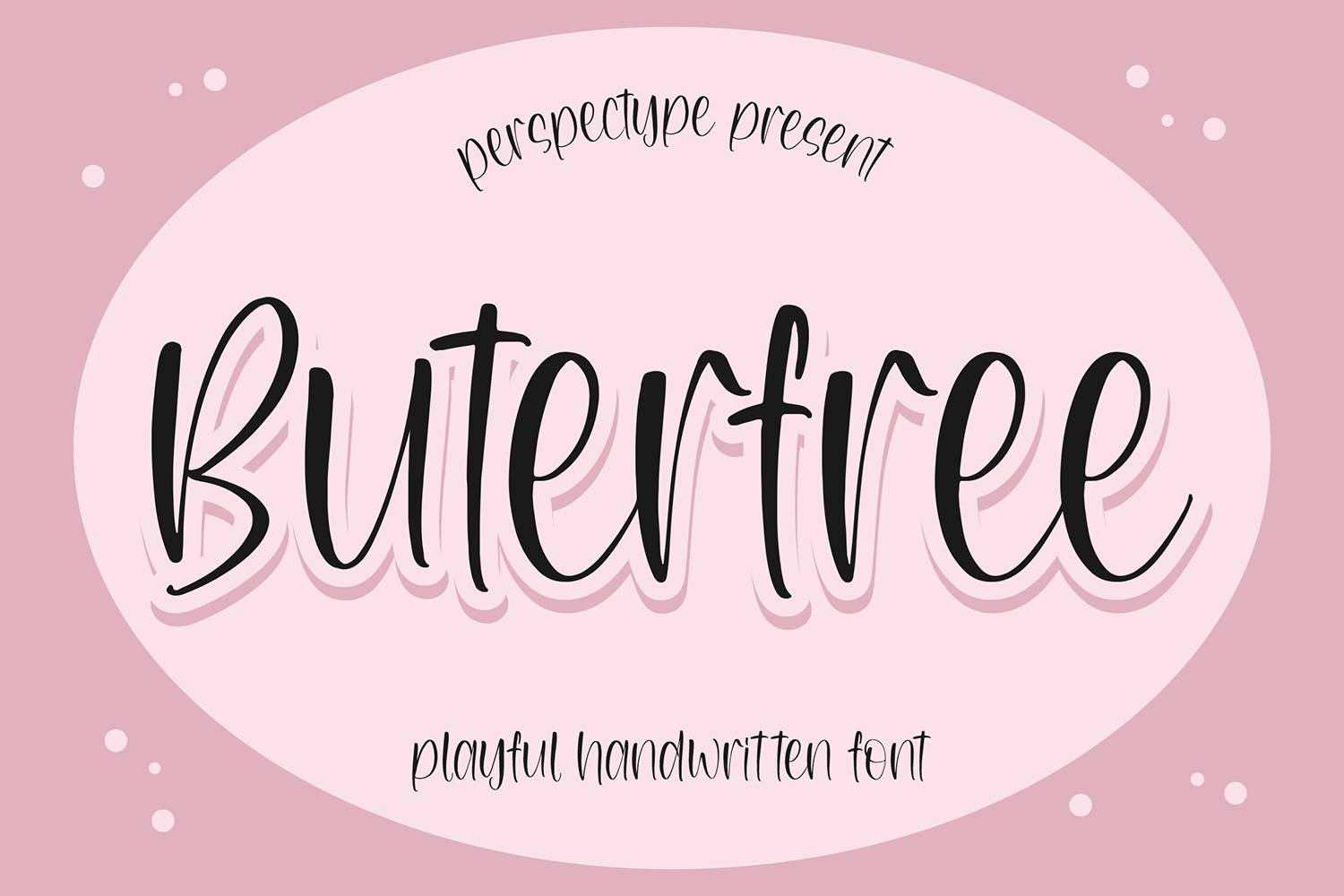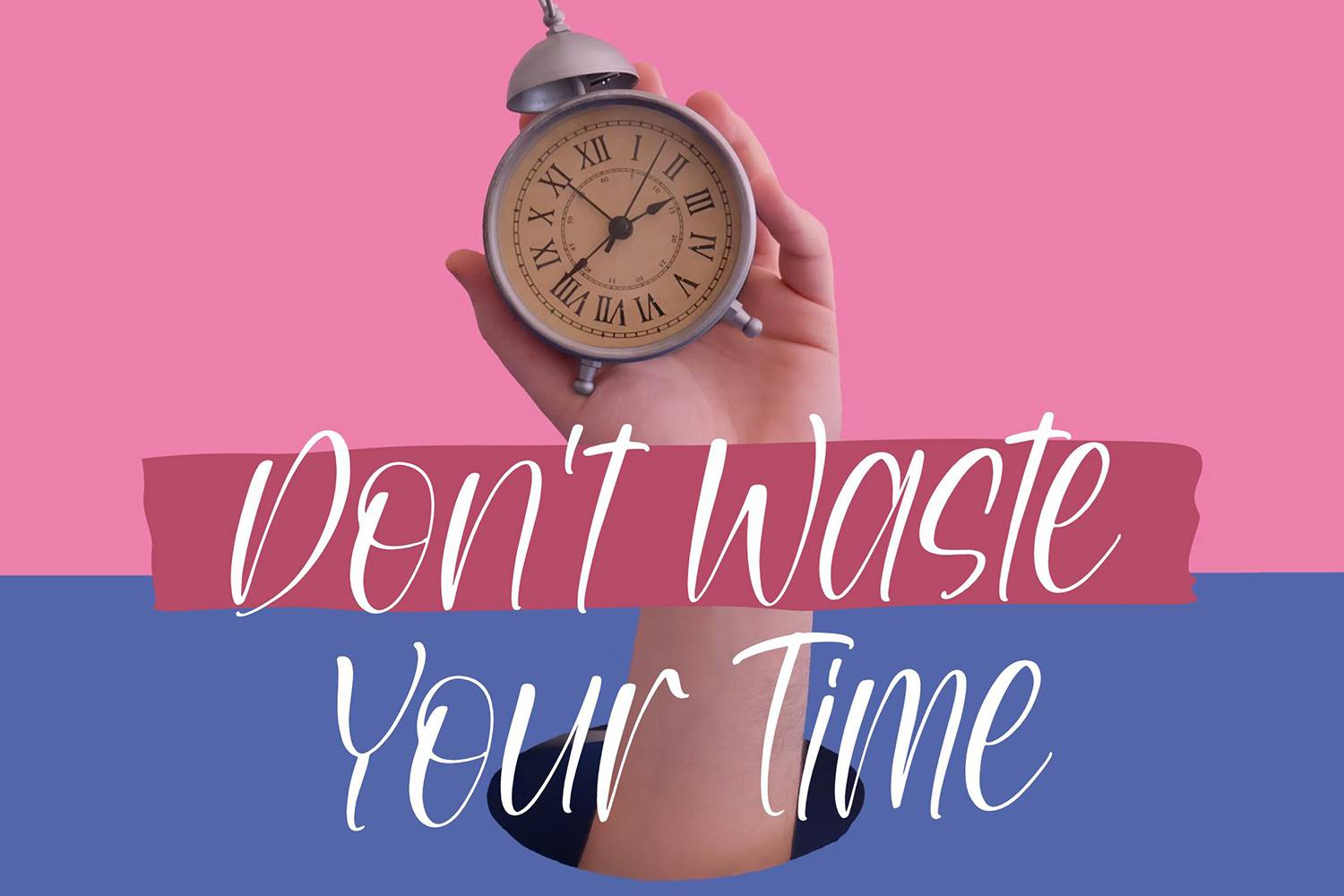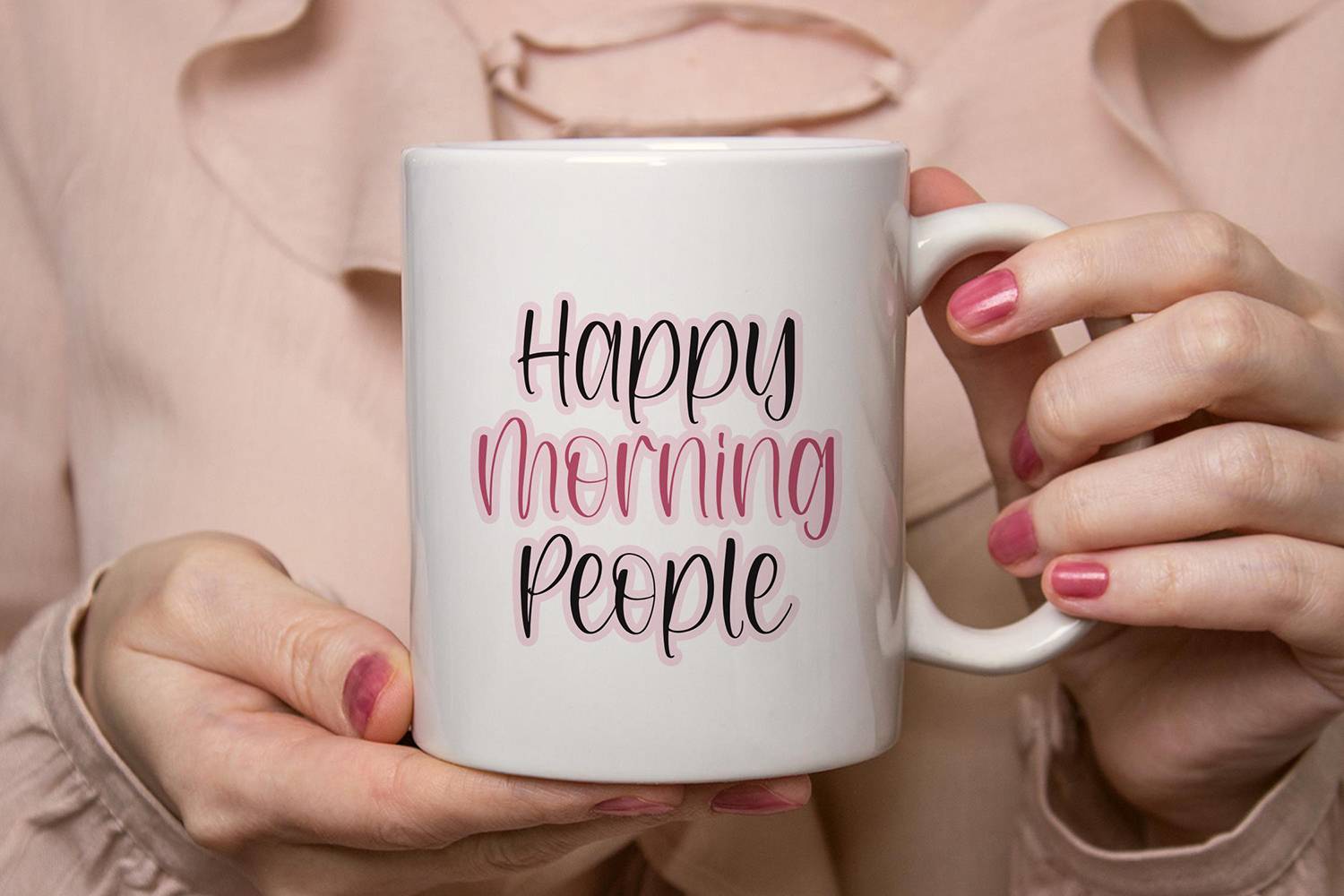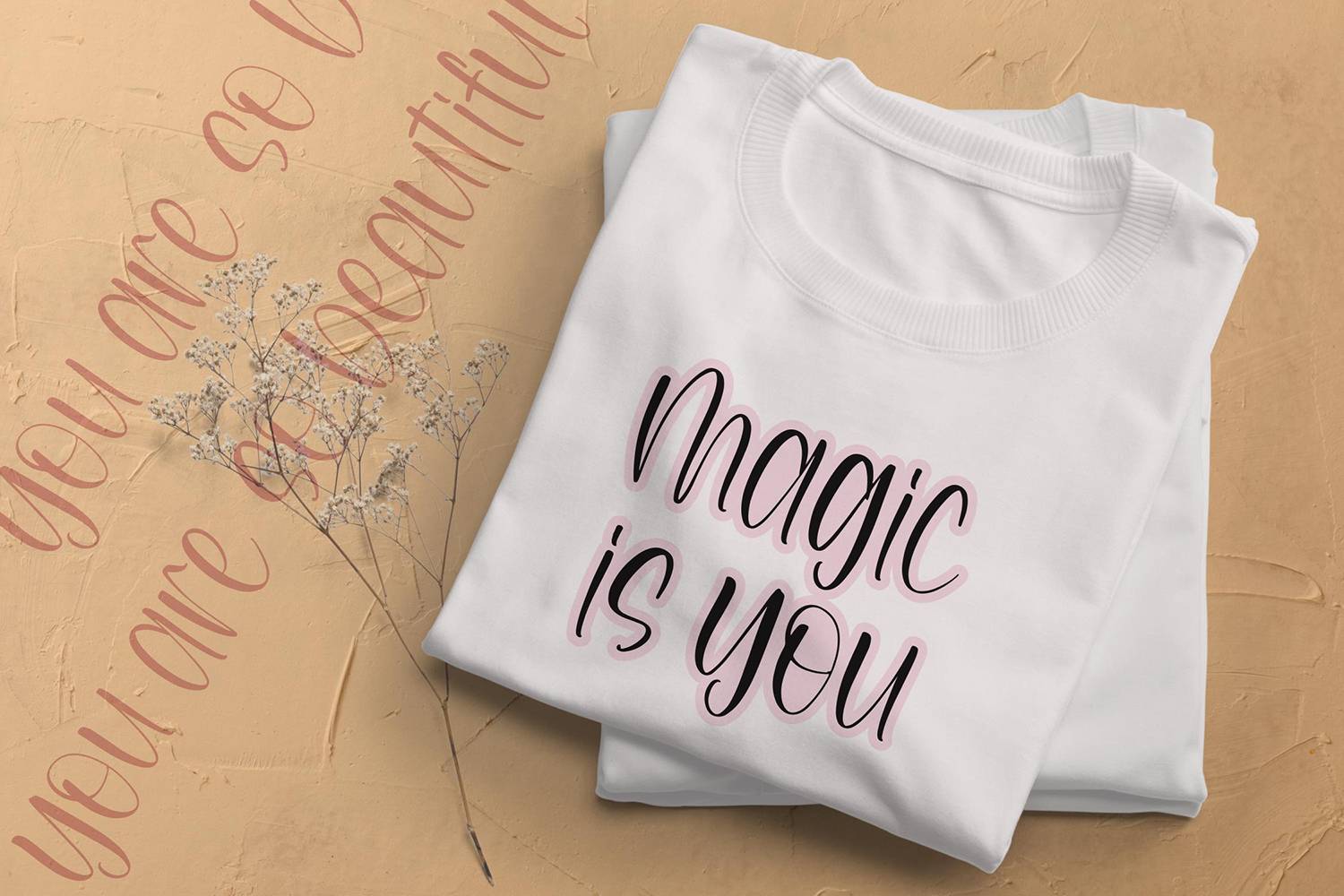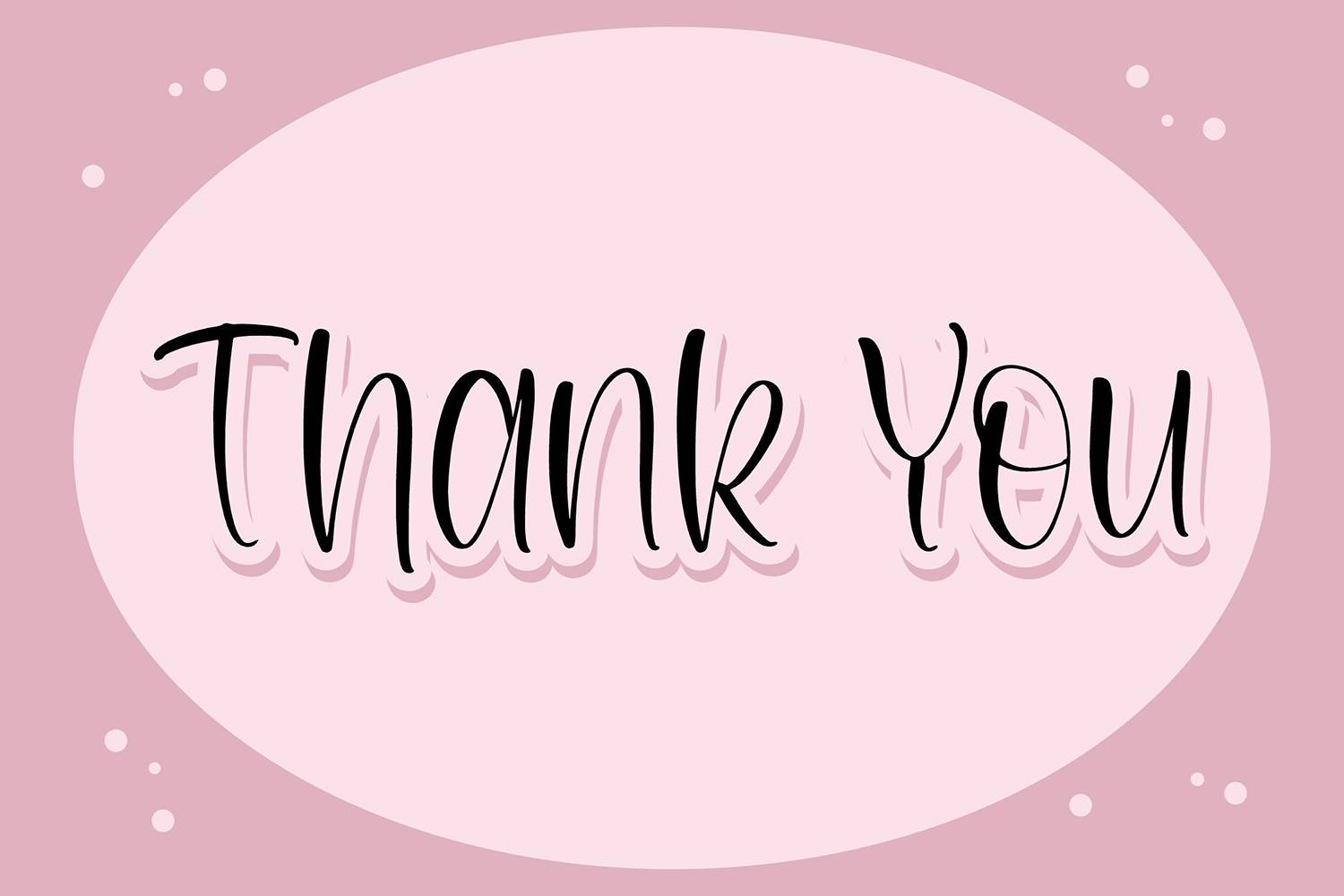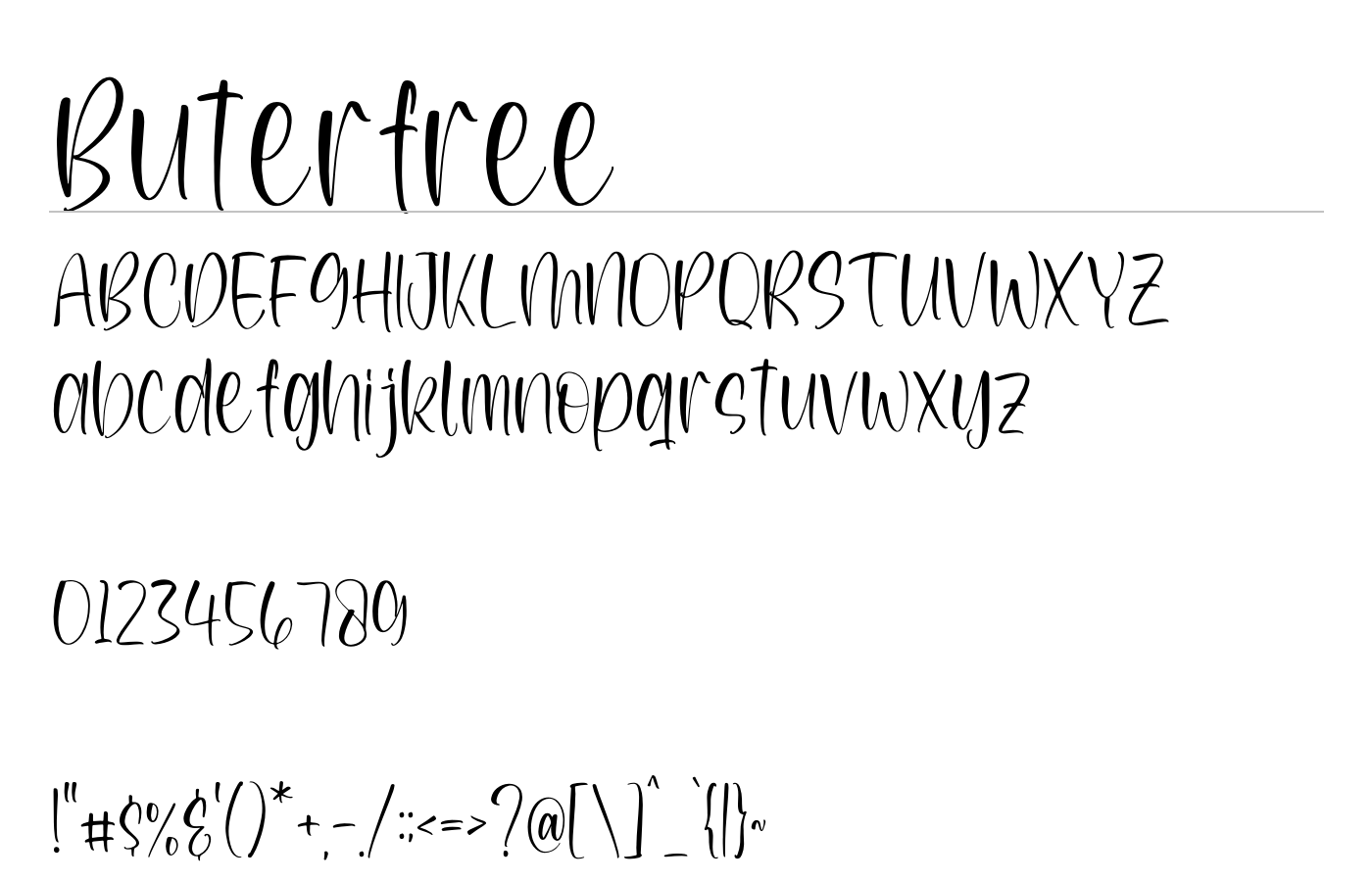
ButerFont is a playful and elegant handwritten script that features tall, slender letterforms with a friendly, casual vibe. Its light weight and flowing, irregular strokes give it a personal, approachable feel, making it perfect for creative branding, invitations, and projects that want to convey warmth and individuality. This font works well in headlines and display settings where a charming, hand-crafted touch is desired.
ButerFont
About ButerFont